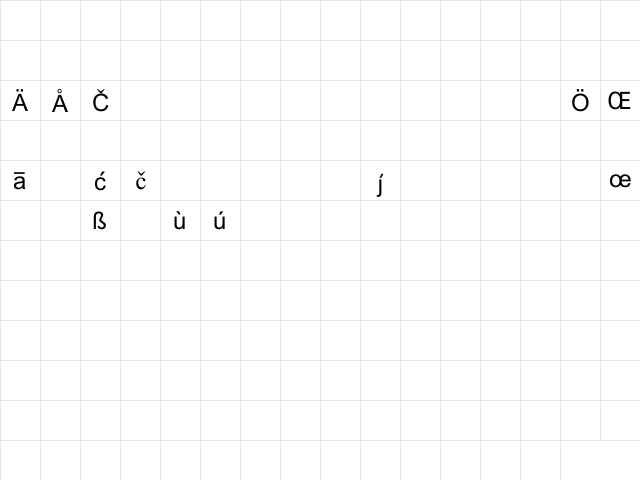
Van Dale Diacritica Regular
| Foundry | High-Logic |
| Designer | High-Logic - Erwin Denissen 1999 |
Design Context for Van Dale Diacritica Typeface
Van Dale Diacritica offers clean, dependable letterforms without strong stylistic allegiance, making it a practical choice for designers who need flexibility.